2022 marks the 125th anniversary of Oldřich Menhart’s birth. We believe this is a unique opportunity to present high-quality revitalizations of his iconic typefaces. The Heritage of Oldřich Menhart
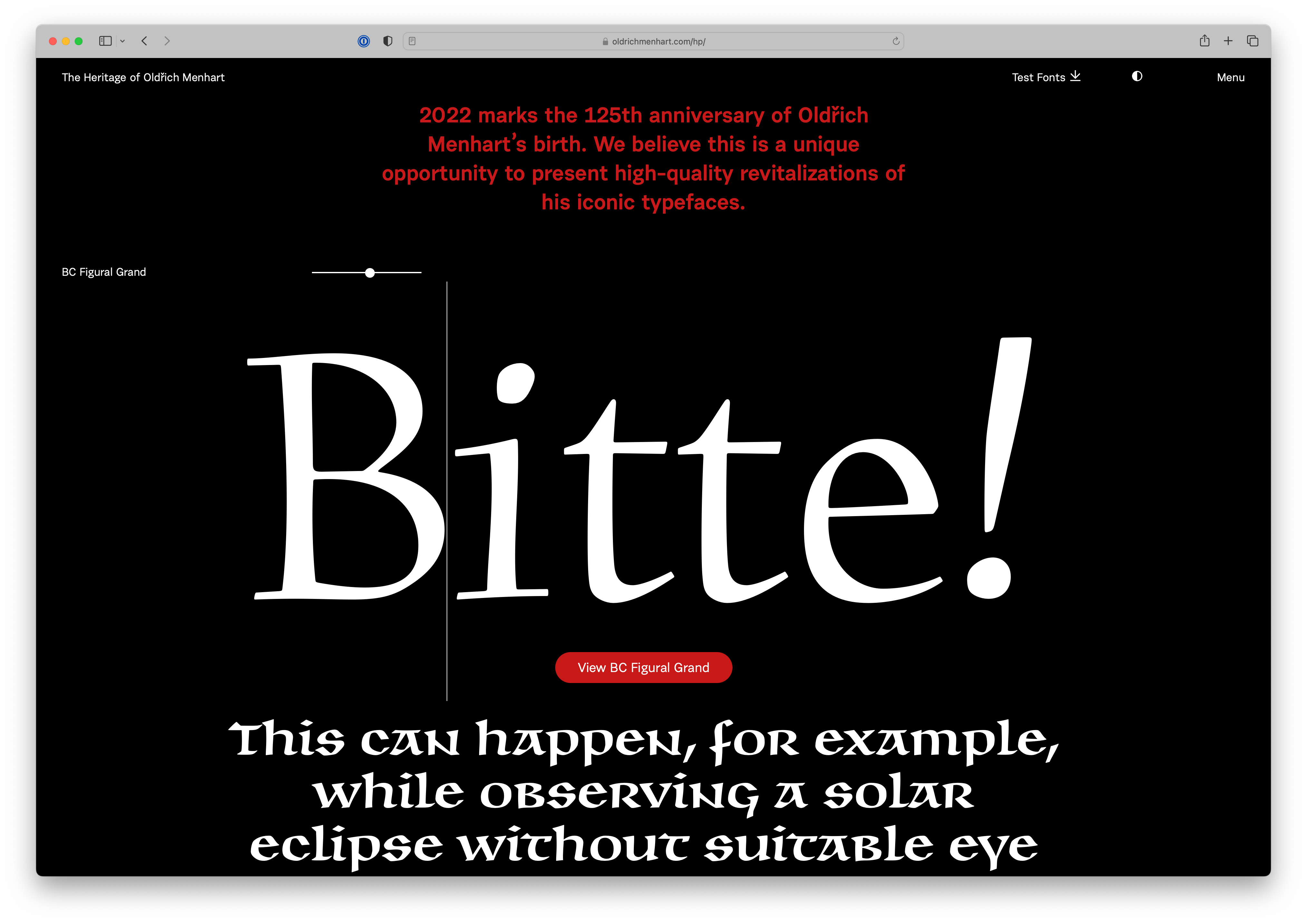
2022 marks the 125th anniversary of Oldřich Menhart’s birth. We believe this is a unique opportunity to present high-quality revitalizations of his iconic typefaces. The Heritage of Oldřich Menhart
In 2017, when we looked at the unprocessed materials on Oldřich Menhart’s work in the National Museum Library archive in Prague, it occurred to us that Czech typography has been owed a high-quality digitization of his typefaces for many decades. In hopes of further developing the full potential of his type designs, we decided to gradually digitize all of his typefaces. We are launching our Oldřich Menhart typography collection with the first five type families: Figural, Monument, Parlament, Unciála and Vajgar.
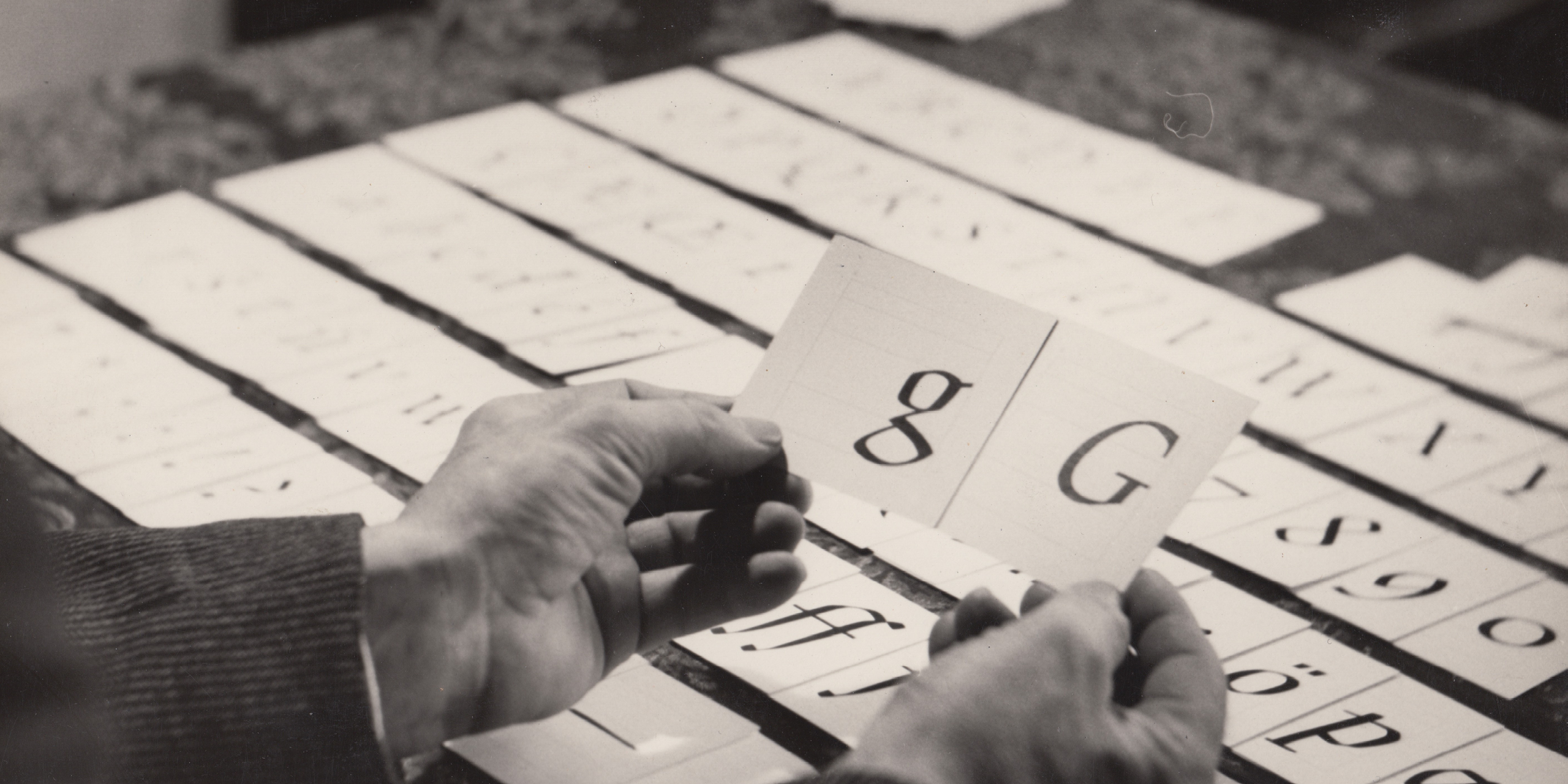
Oldřich Menhart knew how to calligraph most of his typefaces exactly as they had been typographically produced. His typefaces do not contain a single straight line, but do contain a whole range of inventive shapes and specific details. Looking at the precise execution of the typographic cards (none of the older type sketches have been preserved), it is amazing how accurately and quickly, only on the basis of his calligraphic skill and typographic sensibility Menhart managed to design typefaces for printing that are utterly natural and organic on the page, even after complicated engraving. Menhart did not have the possibility to test and endlessly tweak his typefaces, as we do today, and yet his “first attempt” was often enough and perfect. For this reason, we did not try to improve upon Menhart’s fonts other than technically. This made their digitization that much more complicated. Although our approach remained reverent, it brought opportunities to get into Menhart’s mind and understand, if only metaphorically, the complexity of his typographic considerations. This extraordinary privilege was our primary motivation.